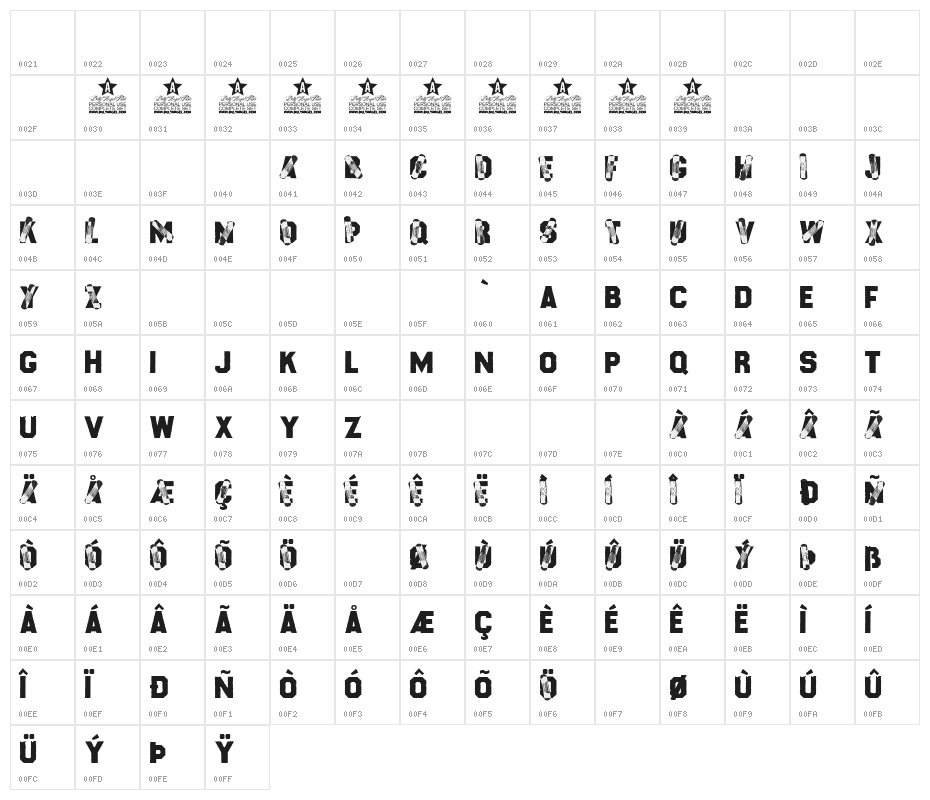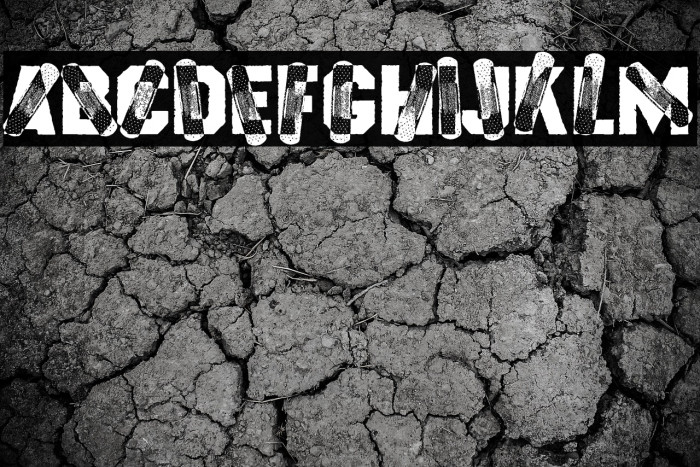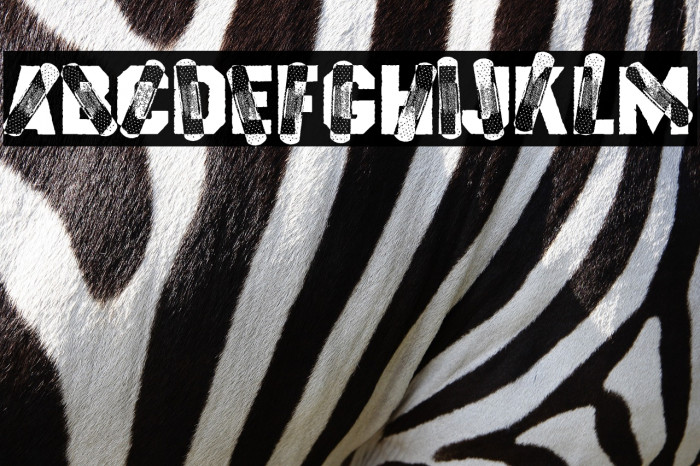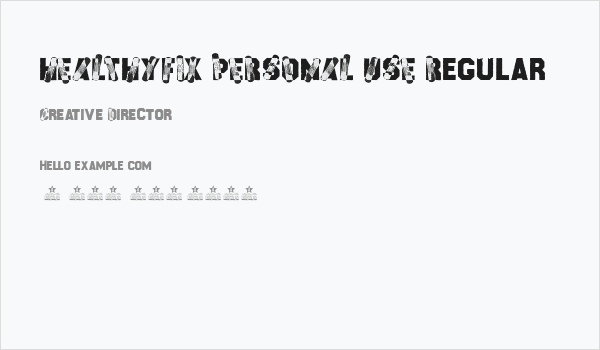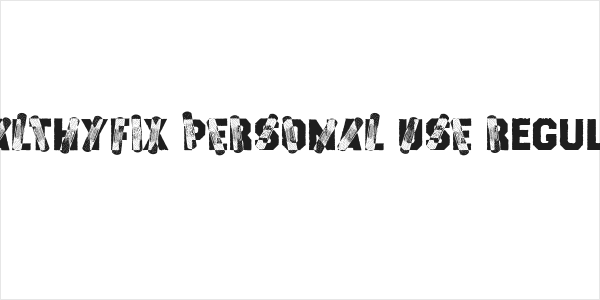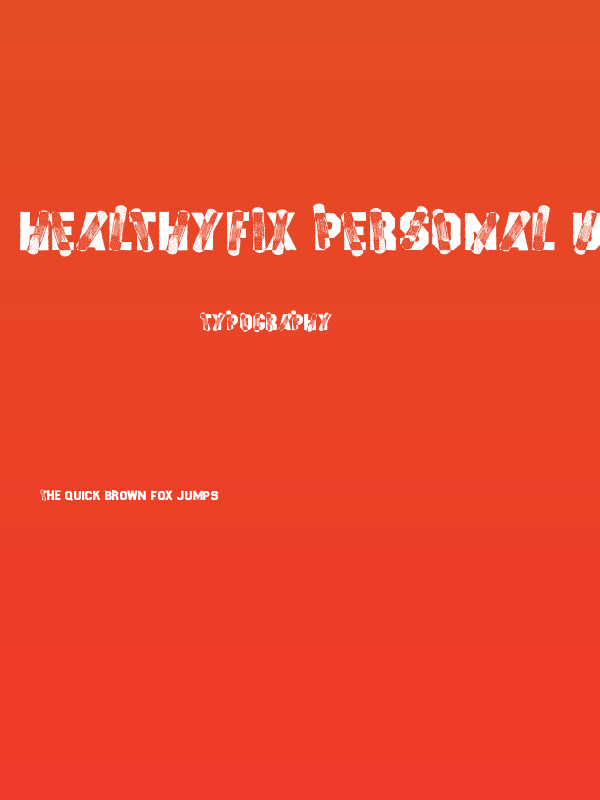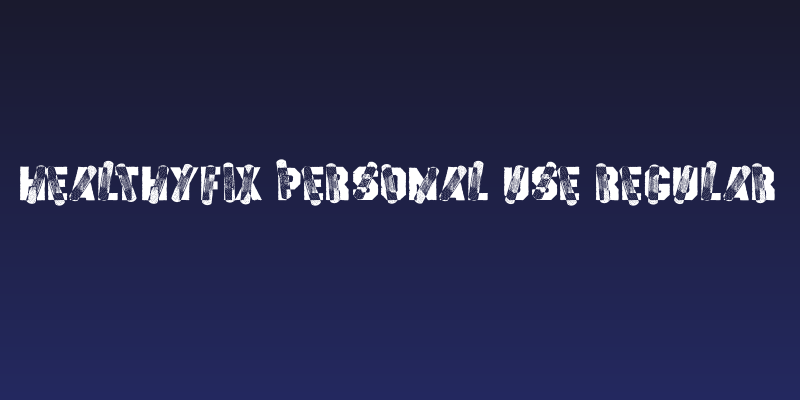
HEALTHYFIX PERSONAL USE Regular Font
HEALTHYFIX PERSONAL USE Regular Description
This font features a bold and impactful design with a distressed texture that gives it a rugged, vintage feel. The uppercase letters are prominent and strong, with a unique pattern that adds depth and character. The font's style is reminiscent of old-school print techniques, making it ideal for projects that require a touch of nostalgia or a gritty aesthetic. Its boldness ensures that it stands out, making it perfect for headlines or titles that need to capture attention. The texture within each character adds a layer of complexity, making it visually interesting and dynamic.
| Proposed Projects | Ideal for posters, album covers, vintage-themed branding, and any project needing a bold, eye-catching typeface. |